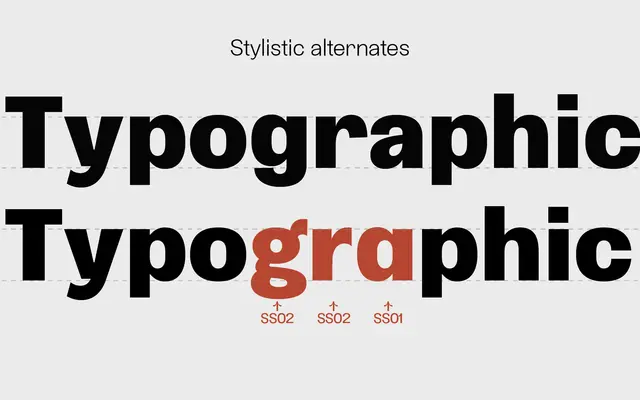
Etrusco Now
Zetafonts · Cosimo Lorenzo Pancini, Mario De Libero · 2020
A revival of the early 1920s Nebiolo grotesque expanded into a superfamily of 42 styles across three widths and seven weights, with italics and variable font support.
Originally cast in lead by Italian foundry Nebiolo and inspired by Schelter & Giesecke's Grotesk, the revival extends the source material into 42 styles spanning Compressed, Condensed and Roman widths. Lighter normal-width weights draw on the modernist character of Recta, while the heavy compressed and condensed cuts reference Aldo Novarese's Metropol, lending the family a warmth absent from Helvetica-era grotesques. The Etrusco Classic subfamily preserves the original historical weights alongside the expanded contemporary range.
A revival of the early 1920s Nebiolo grotesque, itself derived from Schelter & Giesecke's Grotesk; sits firmly in the grotesque sans-serif tradition with a slightly vintage character distinguishing it from cold late-modernist grotesques.